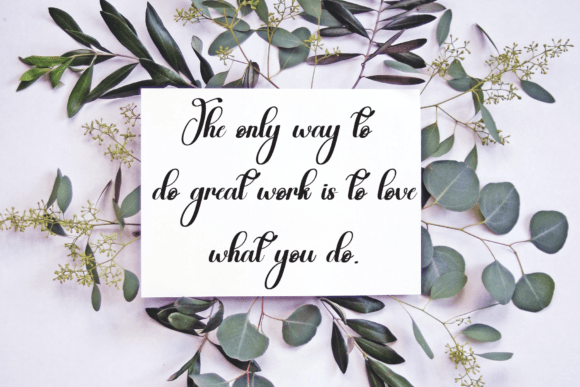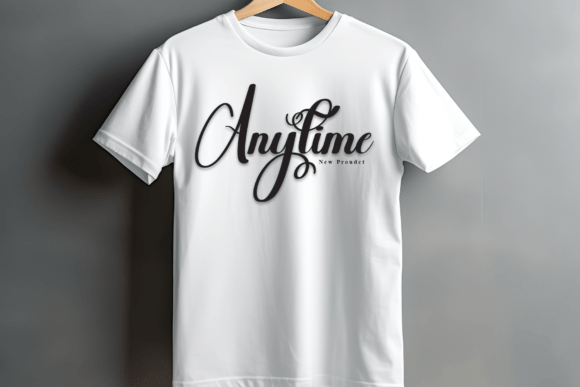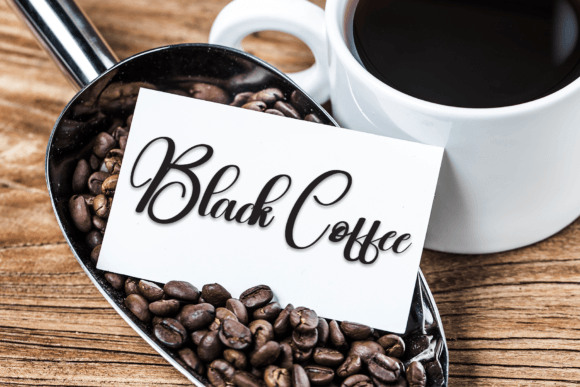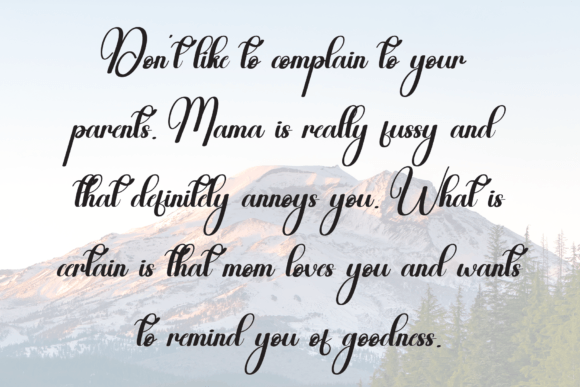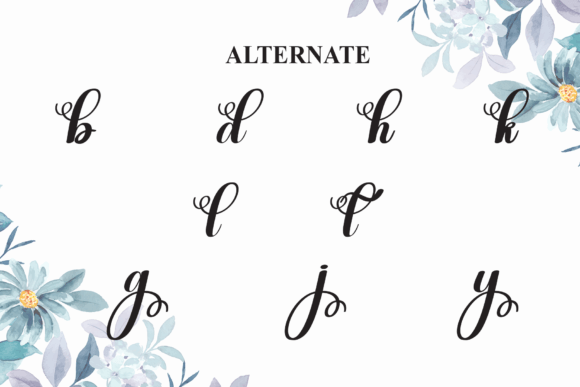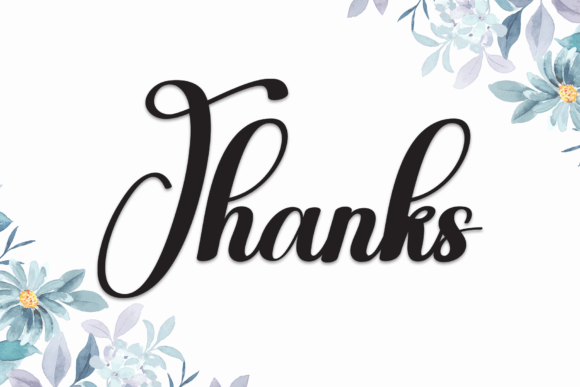
Introducing Angela Font: The Delightful Handwritten Display Font
Are you tired of using the same old fonts in your designs? Do you want to add a touch of personality and whimsy to your projects? Look no further than Angela Font, a charming handwritten display font that’s sure to bring joy and playfulness to your creations. In this article, we’ll take a closer look at Angela Font, its features, and how it can elevate your designs.
A Font that Radiates Charm
Angela Font is a delightful and personable handwritten display font that radiates charm with every curve and line. Its unique and endearing nature makes it perfectly suited for a variety of creative projects, from heartfelt wedding invitations to endearing cards and more. Whether you’re a designer, crafter, or DIY enthusiast, Angela Font is an essential tool to have in your toolkit.
Bringing Joy and Playfulness to Your Designs
Angela Font is designed to bring a sprinkle of fun to your designs. Its light-hearted and fun-loving spirit makes it an excellent choice for projects that require a playful touch. With Angela Font, you can add a dash of personality to your designs, making them stand out from the crowd. Whether you’re creating wedding invitations, greeting cards, or social media graphics, Angela Font is sure to bring a smile to your audience’s faces.
Perfect for Heartfelt Wedding Invitations and Endearing Cards
Angela Font is particularly well-suited for wedding invitations and endearing cards. Its charming and whimsical nature makes it perfect for conveying love, joy, and celebration. With Angela Font, you can create beautiful and unique wedding invitations that set the tone for a special day. Additionally, its endearing nature makes it an excellent choice for creating heartfelt cards for birthdays, anniversaries, and other special occasions.
A Versatile Font for Creative Projects
Angela Font is not just limited to wedding invitations and cards. Its versatility makes it an excellent choice for a wide range of creative projects, including:
- Blog posts and articles
- Branding and packaging
- Signs and posters
- Digital art and illustrations
Why Choose Angela Font?
So, why choose Angela Font over other fonts? Here are just a few reasons:
- Unique and charming: Angela Font has a unique and charming personality that sets it apart from other fonts.
- Easy to read: Despite its whimsical nature, Angela Font is easy to read and understand, making it perfect for body text and headlines.
- Highly versatile: Angela Font can be used for a wide range of creative projects, from digital art to branding and packaging.
- Fun and playful: Angela Font is designed to bring a sprinkle of fun and playfulness to your designs, making it perfect for projects that require a light-hearted touch.
Tips for Using Angela Font
Here are a few tips for using Angela Font in your designs:
- Use it sparingly: Angela Font is a display font, so use it sparingly to add emphasis and personality to your designs.
- Pair it with other fonts: Angela Font pairs well with other fonts, so experiment with different combinations to find the perfect look for your project.
- Experiment with colors: Angela Font looks great in a variety of colors, so don’t be afraid to experiment and find the perfect hue for your project.
Angela Font is a delightful and personable handwritten display font that’s sure to bring joy and playfulness to your designs. Its unique and charming nature makes it perfectly suited for a wide range of creative projects, from heartfelt wedding invitations to endearing cards and more. With its versatility, ease of use, and fun personality, Angela Font is an essential tool for any designer or crafter looking to add a sprinkle of whimsy to their projects.